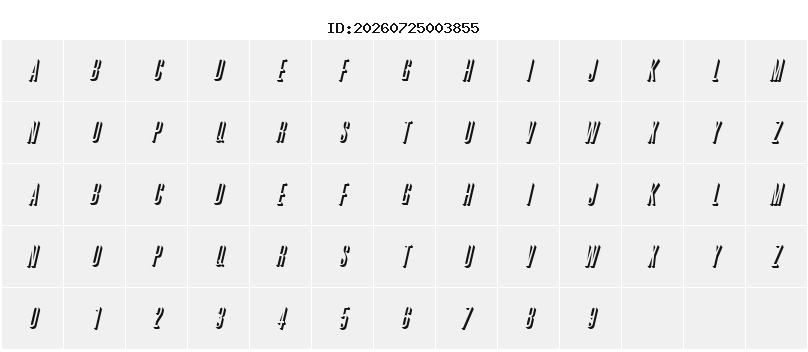
About GreatRelief.ttf
GreatRelief.ttf is a modern, elegant sans-serif font designed for ultimate readability and visual harmony. Perfect for branding, headlines, web design, and print materials.